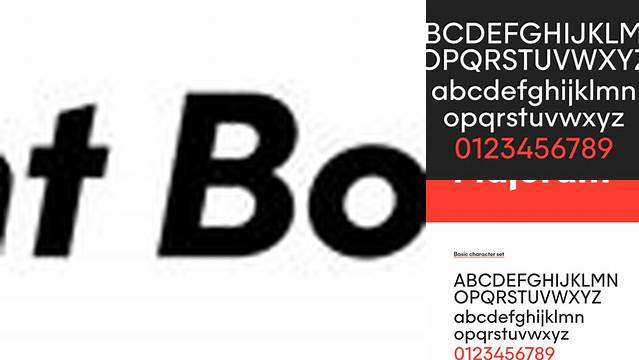
When it comes to typography, the Majorant Bold font stands out as a versatile and impactful choice. Its clean lines, strong presence, and modern aesthetic make it a favorite among designers and creatives alike. Whether you're working on branding materials, website design, or print projects, the Majorant Bold font can add a touch of sophistication and professionalism to your work. In this comprehensive guide, we'll explore the features of Majorant Bold, discuss its various applications, and provide you with resources for downloading it for free.
The Majorant Bold font is characterized by its assertive weight and balanced proportions. Each letterform is carefully crafted to ensure readability and visual appeal, making it suitable for both headlines and body text. Its bold weight commands attention, making it ideal for emphasizing key messages and creating a strong visual hierarchy. The font's versatility extends to its compatibility with a wide range of design styles, from minimalist and modern to classic and elegant. Whether you're aiming for a bold statement or a subtle touch of sophistication, Majorant Bold can adapt to your creative vision. The impact of typography on design cannot be overstated, and choosing the right font can significantly enhance the overall aesthetic and effectiveness of your projects. Majorant Bold offers a compelling combination of readability, visual appeal, and versatility, making it an excellent choice for a wide array of design applications. Its clean lines and balanced proportions ensure that your text is both legible and visually engaging, while its bold weight adds a touch of authority and confidence. When used thoughtfully, Majorant Bold can elevate your designs and help you communicate your message with clarity and impact. Furthermore, the availability of Majorant Bold as a free download makes it accessible to designers of all levels, from students and hobbyists to seasoned professionals. This accessibility democratizes design and empowers creatives to experiment with different typography options without financial constraints. By incorporating Majorant Bold into your design toolkit, you can unlock new creative possibilities and enhance the overall quality of your work. So, dive in and explore the world of Majorant Bold – you might just find your new favorite font.
Key Features of Majorant Bold Font
Majorant Bold boasts several key features that make it a standout choice for designers:
- Assertive Weight: The bold weight commands attention and emphasizes key messages.
- Clean Lines: The font's clean lines contribute to its modern and professional aesthetic.
- Balanced Proportions: Each letterform is carefully crafted to ensure readability and visual appeal.
- Versatility: Majorant Bold is compatible with a wide range of design styles.
- Readability: The font is designed for optimal readability, even in smaller sizes.
Applications of Majorant Bold Font
The Majorant Bold font is a versatile typeface suitable for various design applications. Here are some common uses:
- Headlines and Titles: Its bold weight makes it perfect for creating eye-catching headlines.
- Branding Materials: Use Majorant Bold to create a strong and memorable brand identity.
- Website Design: Incorporate the font into your website for a modern and professional look.
- Print Projects: From brochures to posters, Majorant Bold adds a touch of sophistication to any print project.
- Logos: The font's clean lines and strong presence make it an excellent choice for logo design.
The versatility of the Majorant Bold font makes it an invaluable asset for designers working across various mediums and industries. Its ability to adapt to different design styles, from minimalist and modern to classic and elegant, ensures that it remains a relevant and effective choice for a wide range of projects. In branding, Majorant Bold can be used to create a strong and memorable brand identity. Its bold weight commands attention, making it ideal for logos, taglines, and other key brand elements. The font's clean lines and professional aesthetic convey a sense of trustworthiness and authority, which can be crucial for building brand credibility. In website design, Majorant Bold can enhance the user experience by providing clear and legible typography. Its balanced proportions and readability make it suitable for both headlines and body text, ensuring that your website content is easy to read and visually appealing. The font's modern aesthetic can also contribute to the overall look and feel of your website, creating a cohesive and engaging online presence. For print projects, such as brochures, posters, and flyers, Majorant Bold can add a touch of sophistication and professionalism. Its bold weight and clean lines ensure that your message stands out and captures the attention of your target audience. The font's versatility also allows you to experiment with different layouts and design elements, creating visually stunning and effective print materials. Moreover, the availability of Majorant Bold as a free download makes it accessible to designers of all levels, from students and hobbyists to seasoned professionals. This accessibility democratizes design and empowers creatives to experiment with different typography options without financial constraints. By incorporating Majorant Bold into your design toolkit, you can unlock new creative possibilities and enhance the overall quality of your work. So, whether you're working on a branding project, designing a website, or creating print materials, consider using Majorant Bold to elevate your designs and communicate your message with clarity and impact.
In conclusion, the Majorant Bold font presents a compelling combination of style, versatility, and accessibility, making it an excellent choice for a wide range of design applications. Its bold weight and clean lines command attention, while its balanced proportions ensure readability and visual appeal. Whether you're working on branding materials, website design, or print projects, Majorant Bold can elevate your designs and help you communicate your message with clarity and impact. By following the guidelines outlined in this comprehensive guide, you can confidently download, install, and use Majorant Bold font in your creative endeavors. Remember to always prioritize trusted sources when downloading fonts and to carefully review the licensing terms before using them in any project. With its free availability and versatile design, Majorant Bold is a valuable asset for designers of all levels, from students and hobbyists to seasoned professionals. So, embrace the power of Majorant Bold and unlock new creative possibilities in your design work.